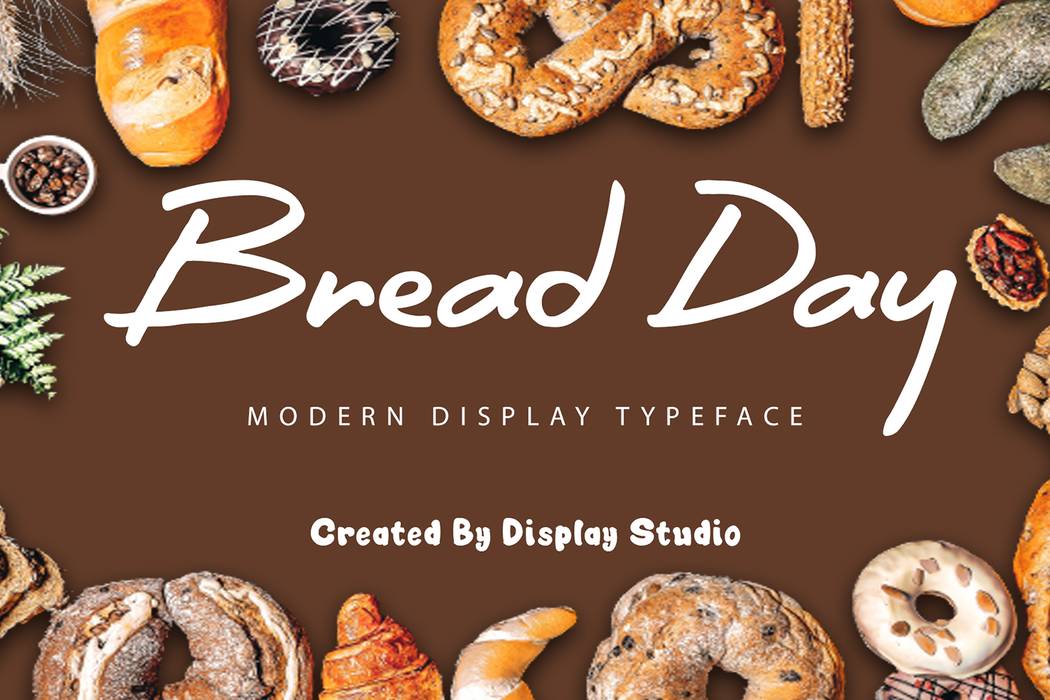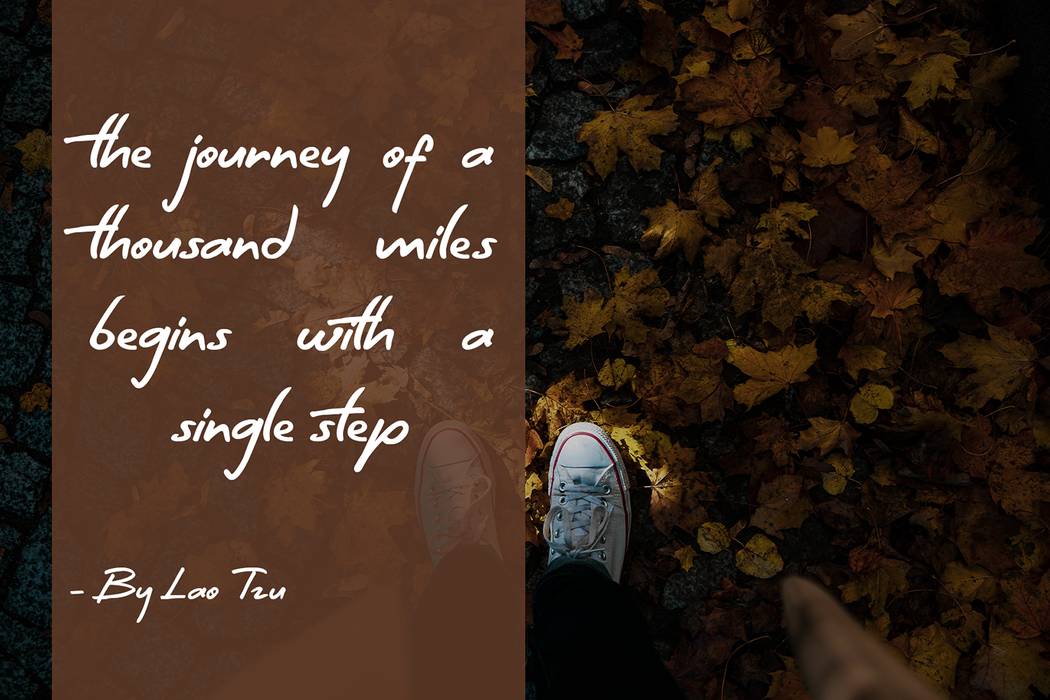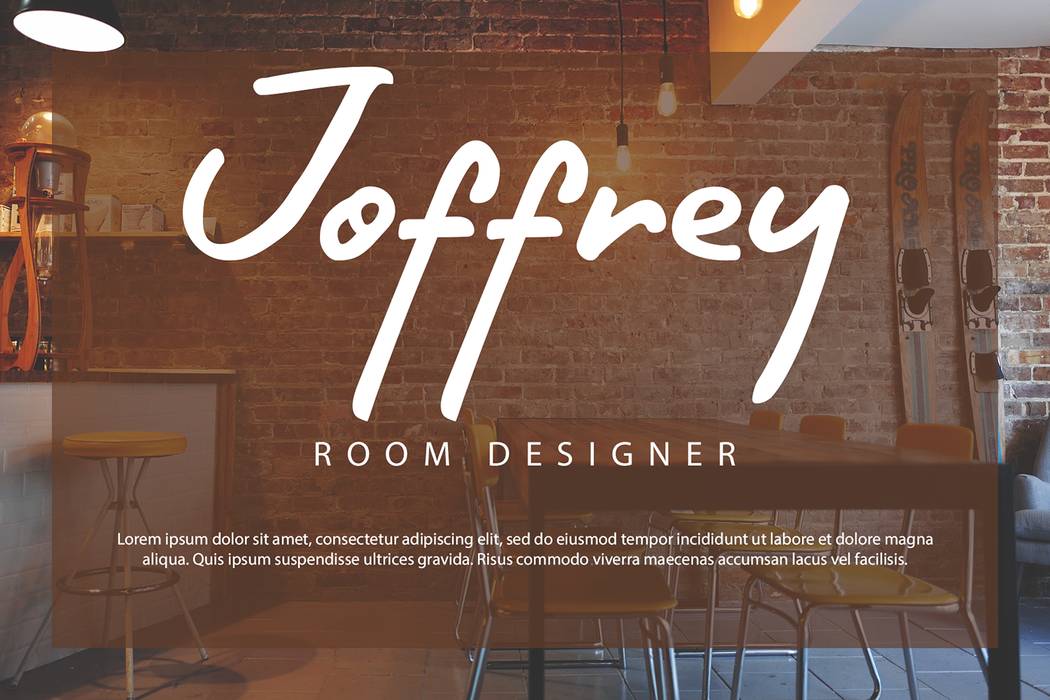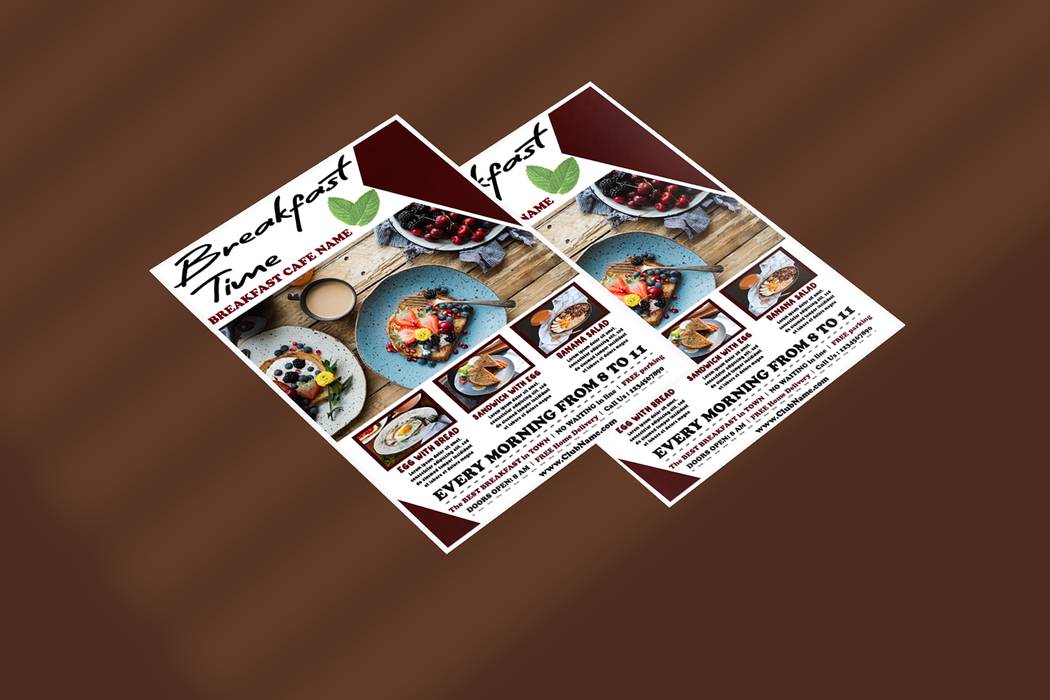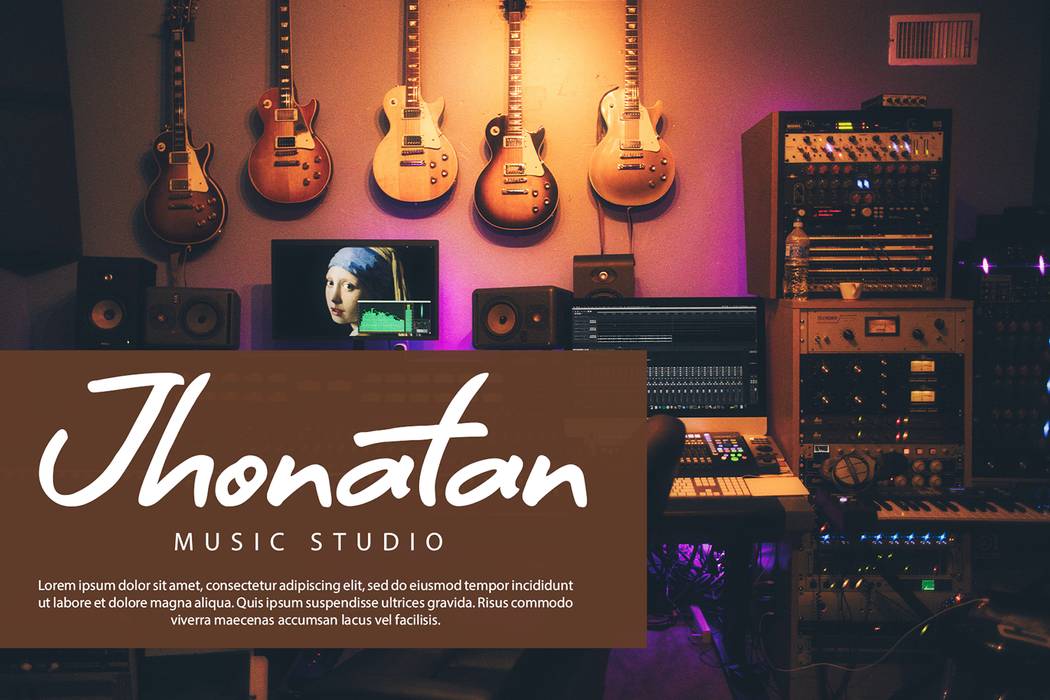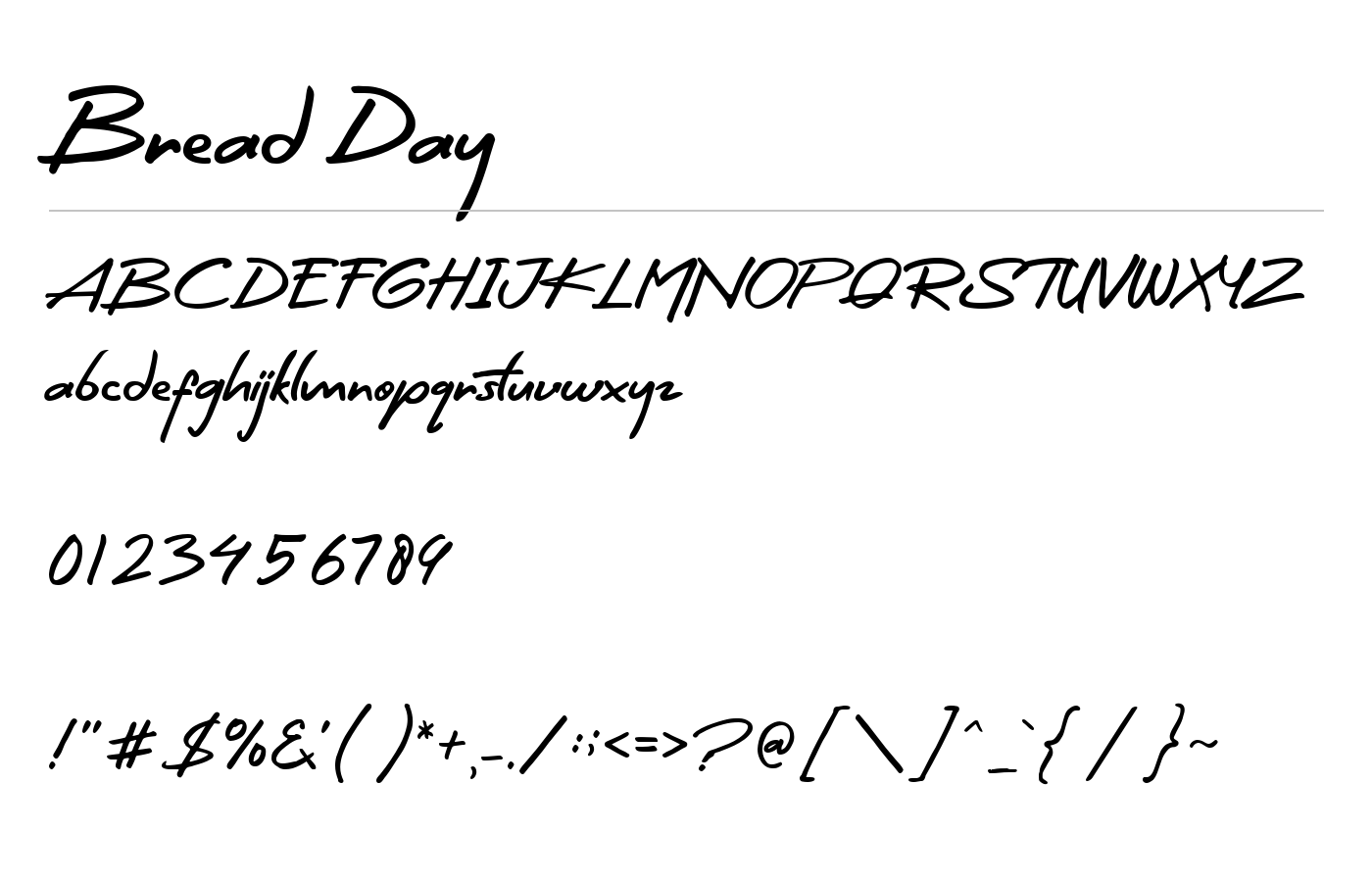
Bread Day is a lively and casual script font with a handwritten style that feels approachable and friendly. Its smooth, flowing strokes and slightly irregular shapes give it a personal and informal charm, making it perfect for creative projects, branding, or packaging that aim to convey warmth and authenticity. This font works well in headlines, logos, and designs where a natural, human touch is desired.
Bread Day Font
About Bread Day Font
| Font family | Bread Day Font |